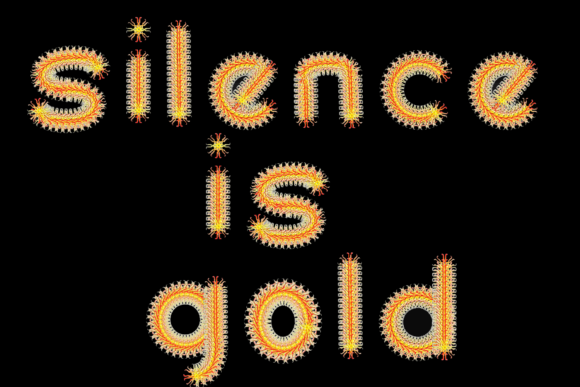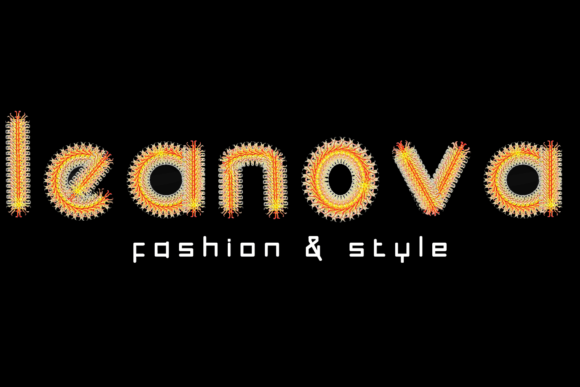
Introducing the Golden Ribbon Font: Elevate Your Designs with a Touch of Elegance
Are you looking for a font that adds a dash of fun and coolness to your designs? Look no further than the Golden Ribbon Font! This stunning color font is perfect for crafters, digital designers, and anyone looking to create eye-catching presentations, greeting cards, and more.
What Makes the Golden Ribbon Font Special?
The Golden Ribbon Font is a unique and versatile color font that can be used in a variety of creative projects. Its elegant and playful design makes it ideal for:
- Crafting: Add a personal touch to your DIY projects, such as scrapbooking, card making, and iron-on designs.
- Digital Designing: Use it to create stunning social media graphics, blog posts, and website headers.
- Greeting Card Making: Create beautiful and heartfelt greeting cards for special occasions.
Tips and Tricks for Using the Golden Ribbon Font
To get the most out of the Golden Ribbon Font, here are some tips and tricks to keep in mind:
- Use it in combination with other fonts to create a unique and visually appealing design.
- Don’t be afraid to get creative and try out new and innovative ways to use the font.
Why Choose the Golden Ribbon Font?
So, why choose the Golden Ribbon Font over other fonts? Here are just a few reasons:
- Unique and eye-catching design that will make your designs stand out.
- Versatile and can be used in a variety of creative projects.
In conclusion, the Golden Ribbon Font is a must-have for designers and crafters looking to add a touch of elegance and fun to their designs. With its unique and eye-catching design, versatility, and compatibility with a range of popular design software, it’s the perfect addition to your font collection. So why wait? Download the Golden Ribbon Font today and start creating stunning designs that will leave a lasting impression!